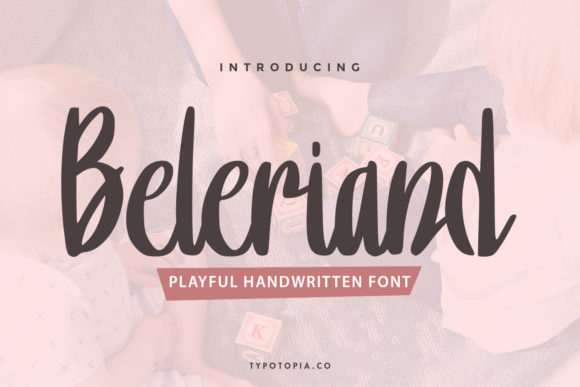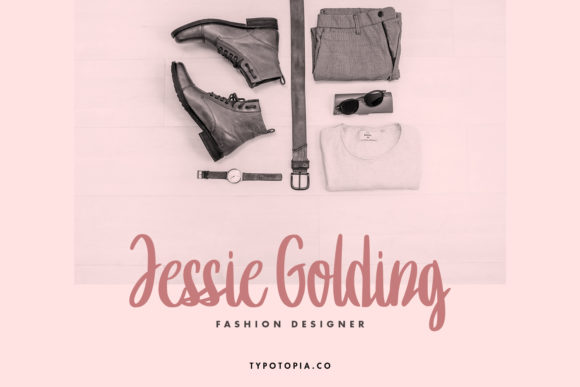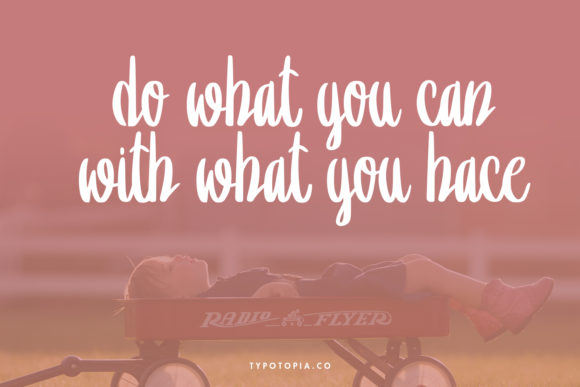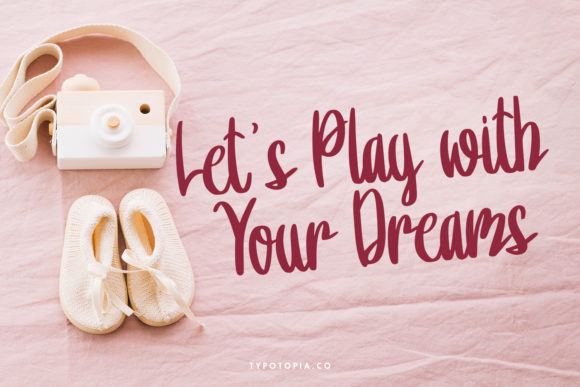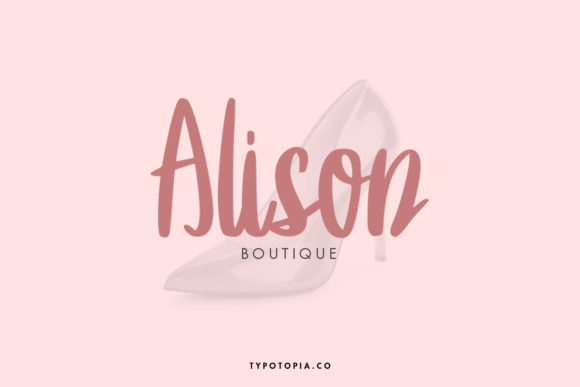
Beleriand Font
About Beleriand Font
Beleriand is a playful and unique handwritten font. It is the best choice for creating eye catching logos, branding and quotes. Every letter has a unique and beautiful touch, which will make your design come alive!